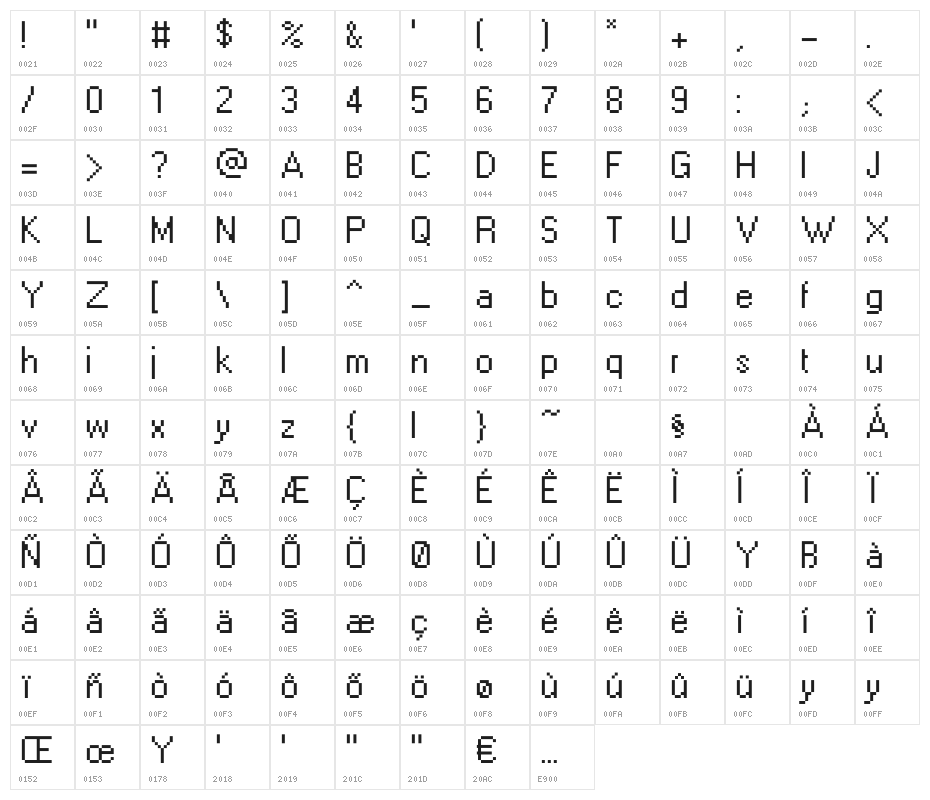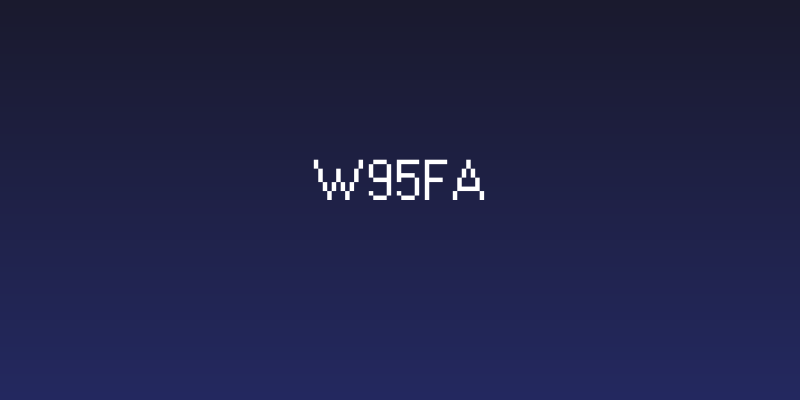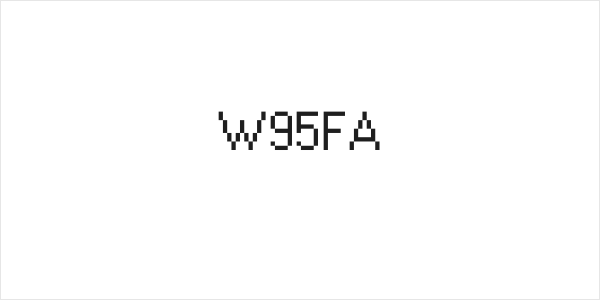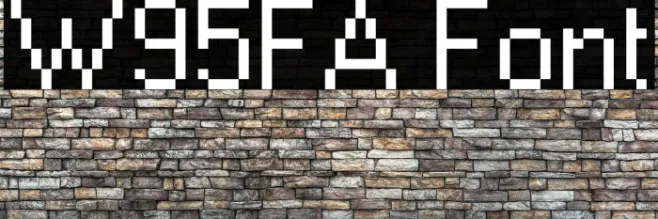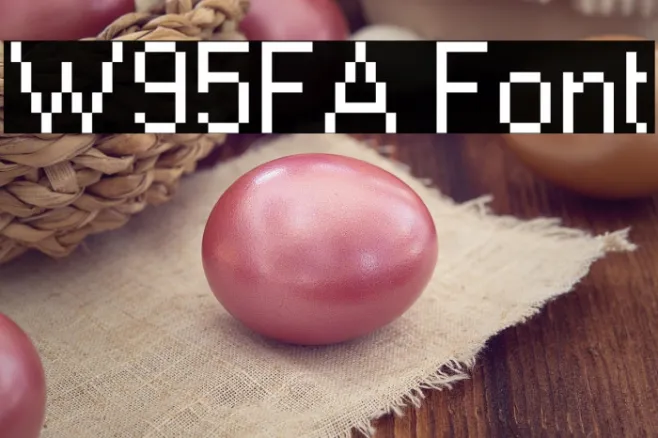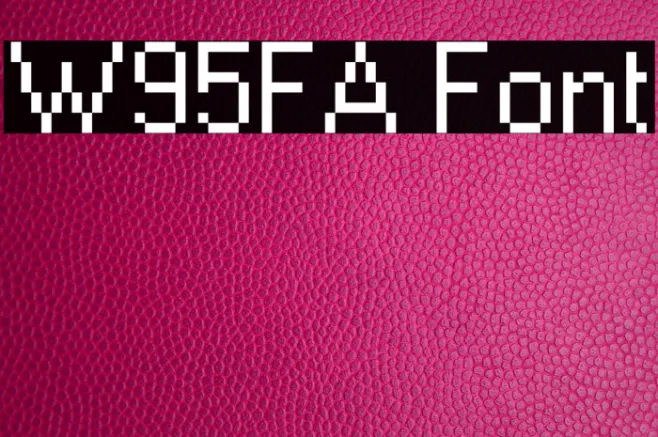
W95FA Font
W95FA Description
This font features a pixelated, blocky design reminiscent of early digital displays and retro video games. Each character is constructed with a uniform grid-like pattern, giving it a distinct, nostalgic appearance. The uppercase and lowercase letters maintain a consistent height and width, contributing to a monospaced feel. The numbers and special characters follow the same pixelated style, ensuring uniformity across all glyphs. This font's simplicity and geometric structure make it ideal for digital-themed projects or designs that aim to evoke a sense of nostalgia for early computing.
| Use Case | Logos, Headlines, Digital Art |
| Proposed Projects | Ideal for retro video game graphics, digital art projects, or any design that seeks to capture the essence of early computing aesthetics. |